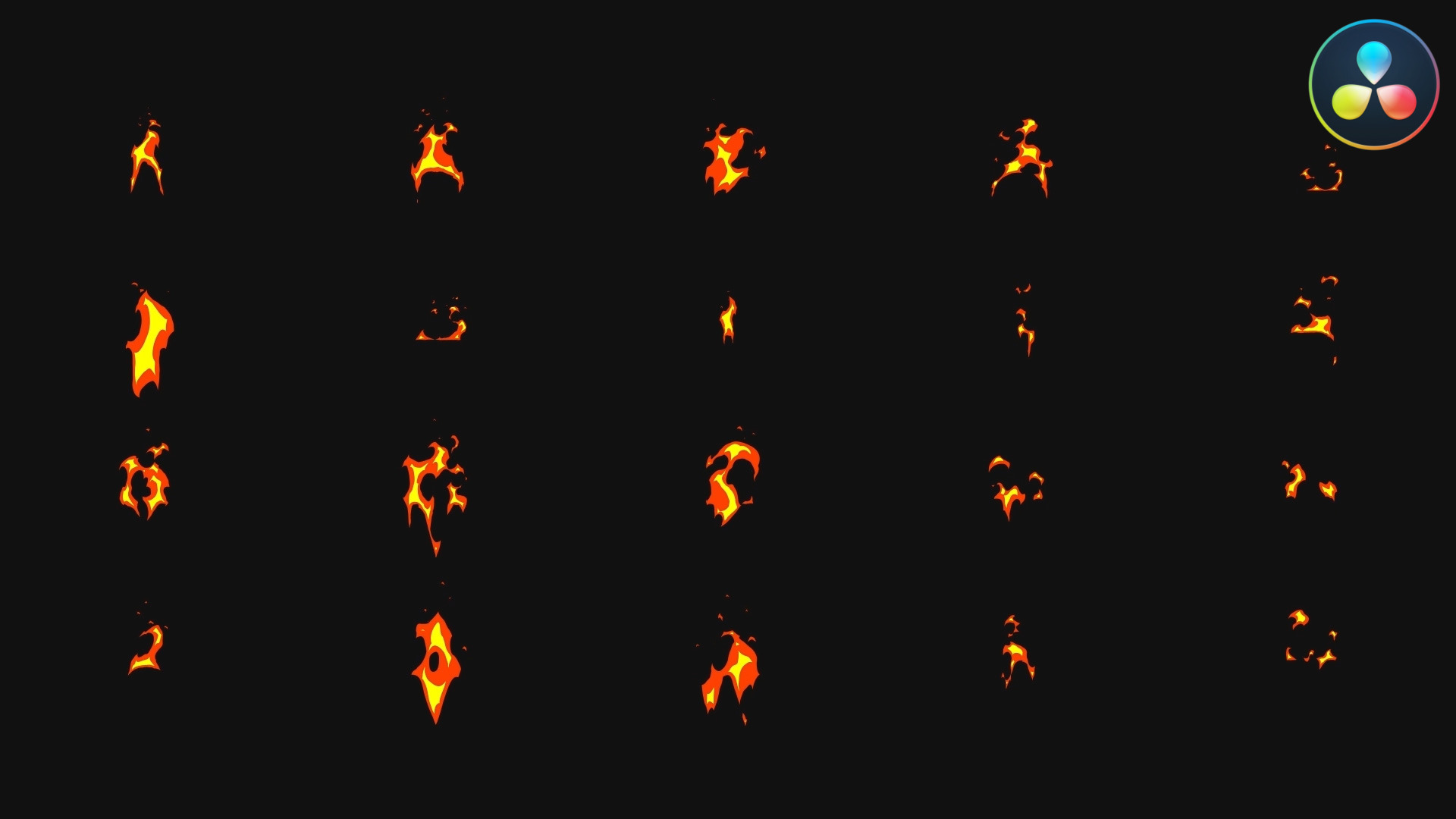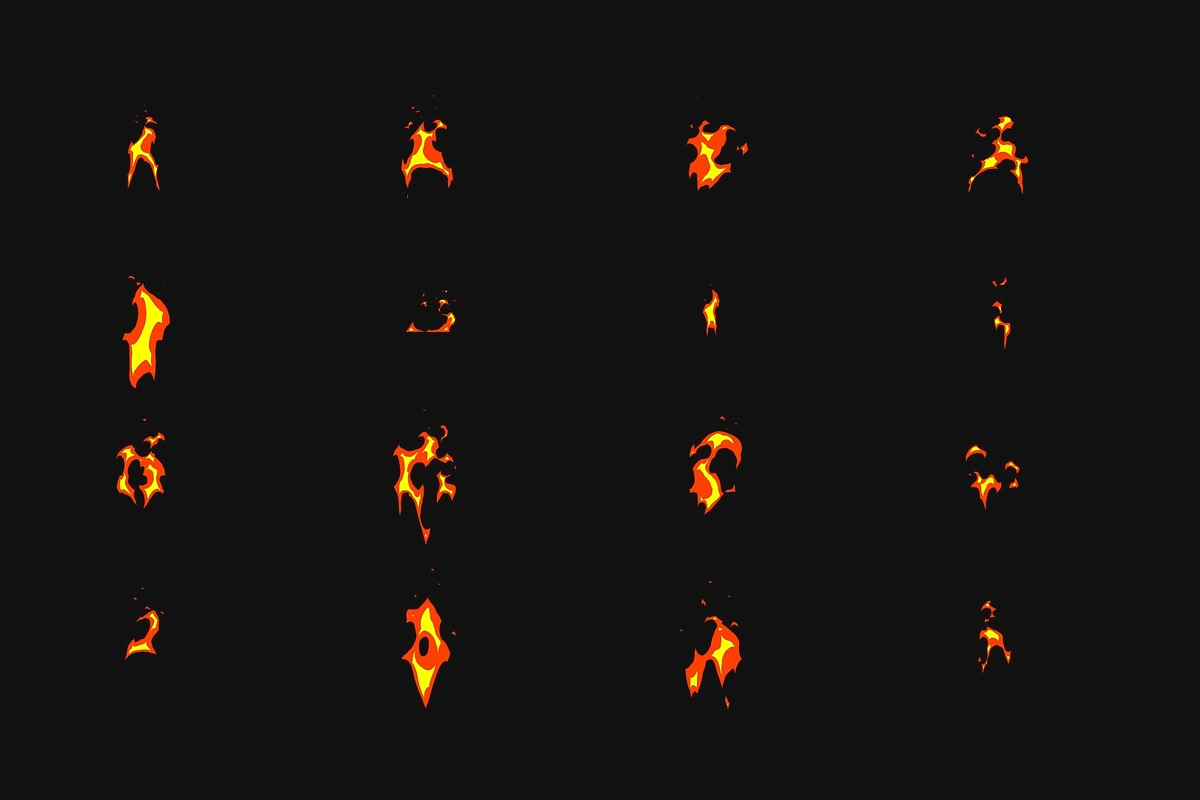
Fire Font Constructor for DaVinci
Fire Font Constructor is a colorful, useful template featuring a playful dynamic flame elements for letters. This animated collection is perfect for extreme content, unique headlines, and eye-catching social media posts. It adds a bit of artful flair to messages and words, making them stand out in fire setting.
- Flame elements for letters